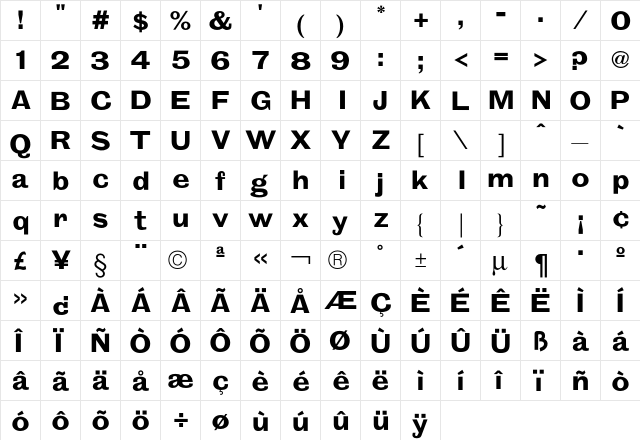
Groschen Extended
Design Context for Groschen Typeface
Groschen offers clean, dependable letterforms without strong stylistic allegiance, making it a practical choice for designers who need flexibility.